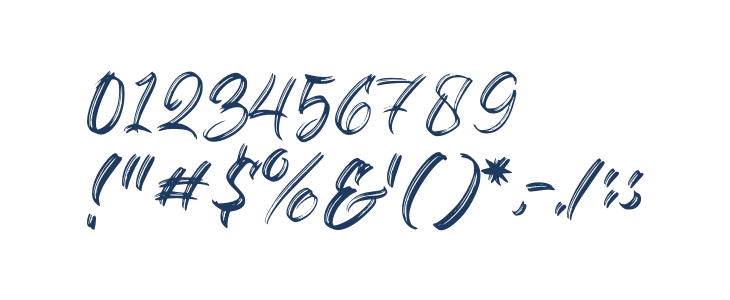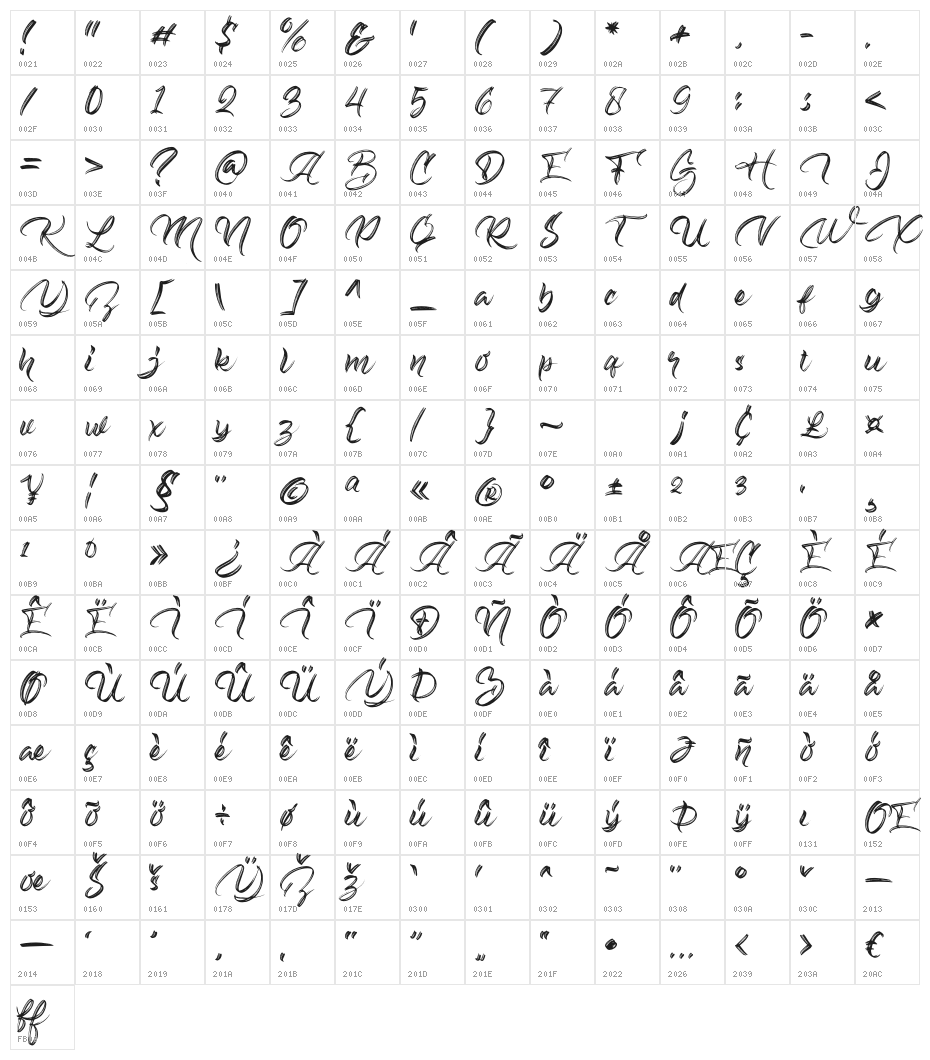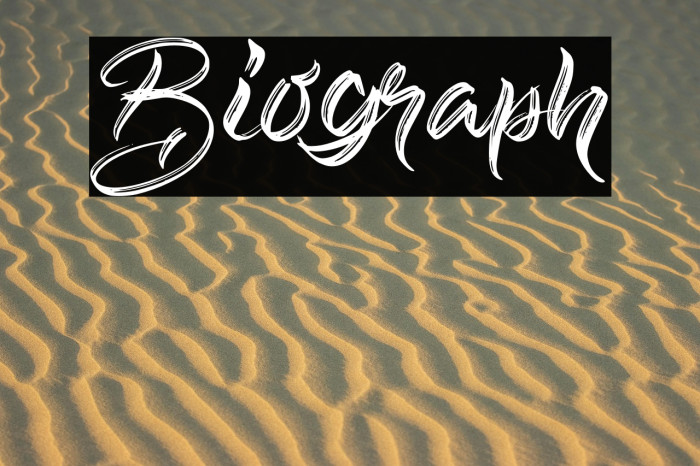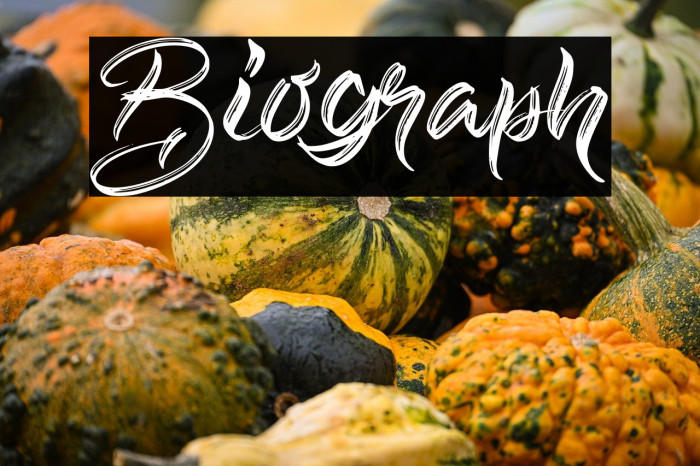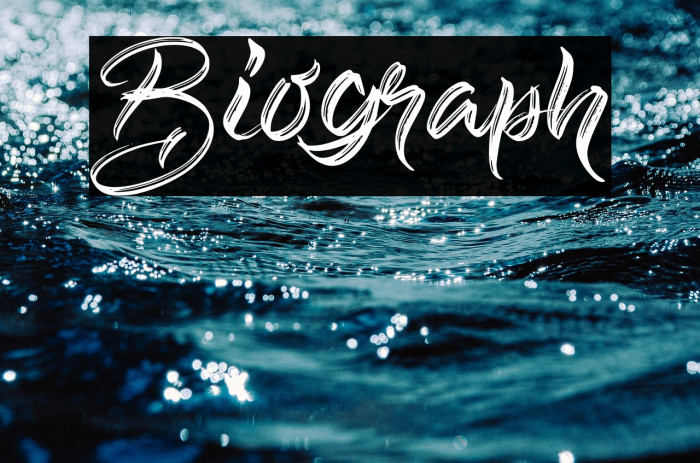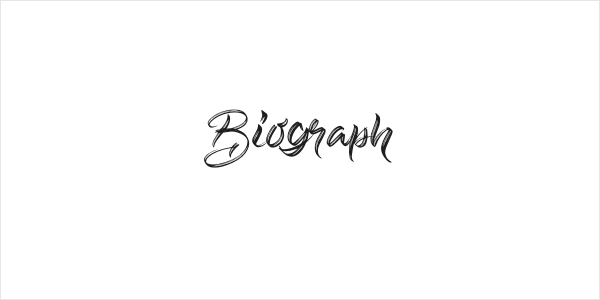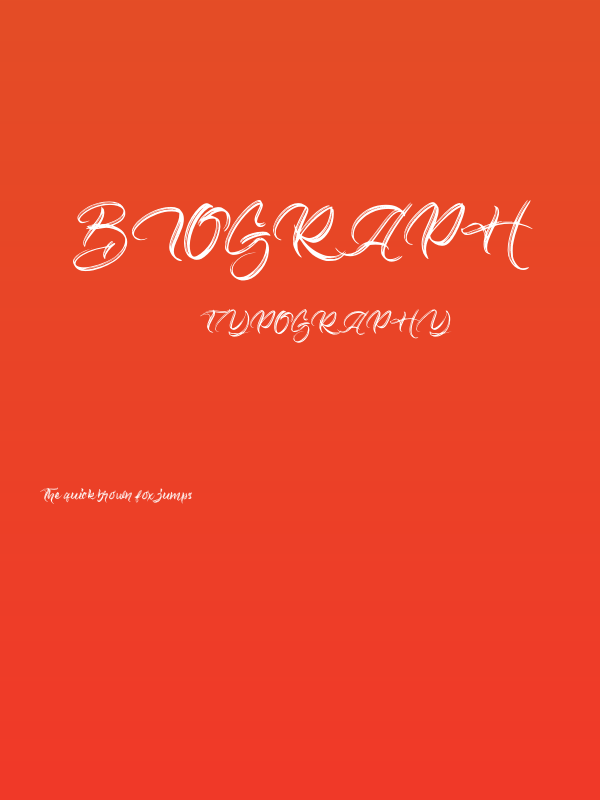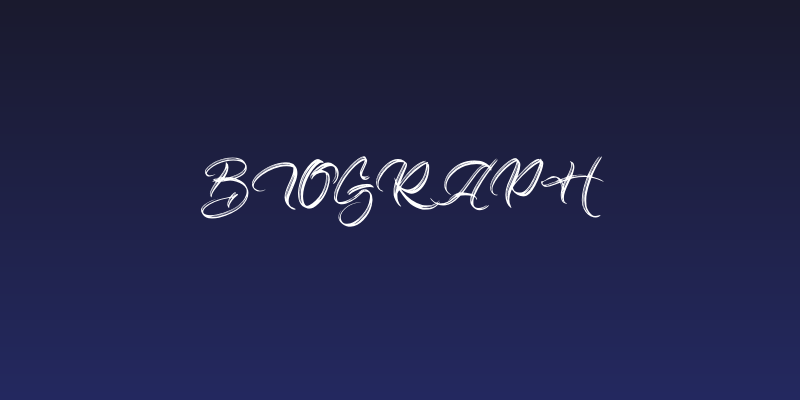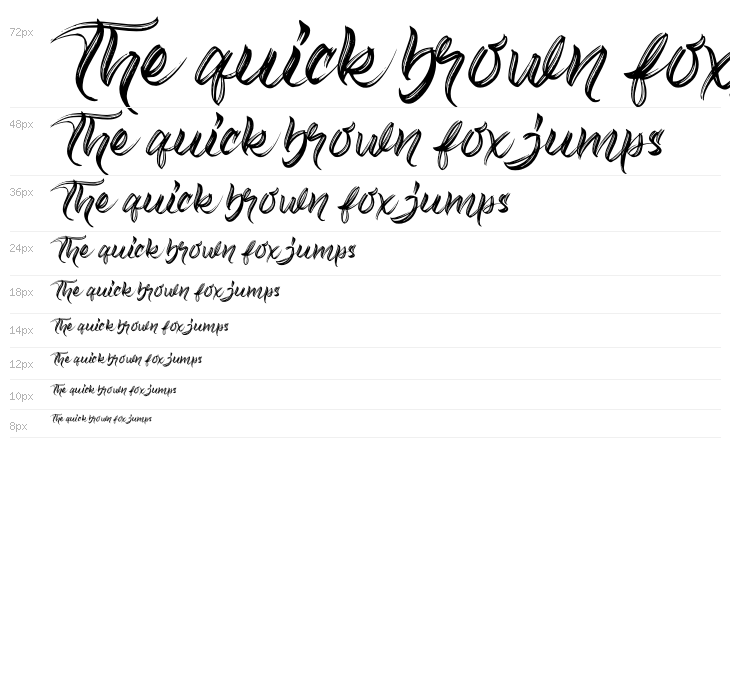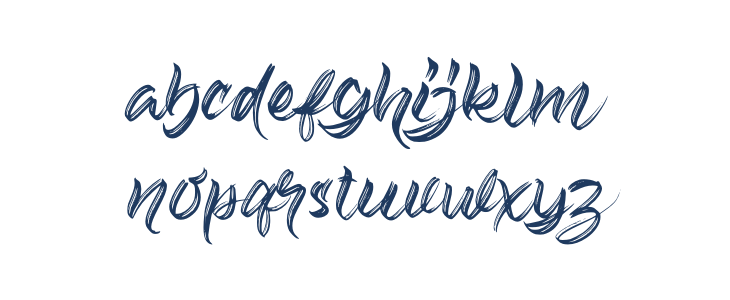
Biograph Font
Biograph Description
This font features an expressive and dynamic script style, characterized by its fluid and sweeping strokes. The letters are interconnected, creating a sense of movement and elegance. The uppercase letters are bold and prominent, while the lowercase letters maintain a consistent flow, enhancing readability. The numerals and special characters are crafted with the same artistic flair, making them stand out. This font exudes a sense of creativity and sophistication, suitable for projects that require a personal and artistic touch.
| Use Case | Logos, Headlines, Invitations |
| Proposed Projects | Ideal for wedding invitations, branding, logo design, and artistic projects that require a personal touch. |